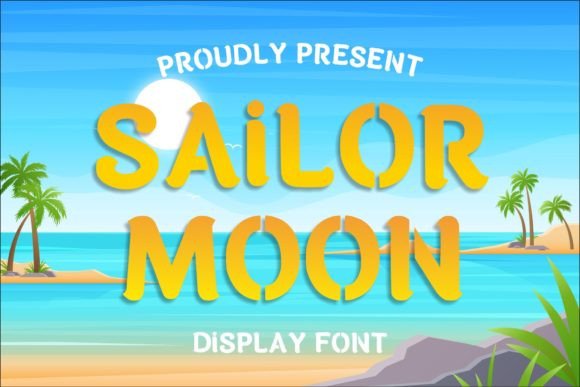
Journey into the world of Sailor Moon Font, a whimsical and captivating display font, a perfect match for your beauty products! Designed by Riki.studio, Sailor Moon is a font that exudes brilliance, joy, and an aesthetic appeal, ideal for cheerful and vibrant designs. Step into a world of imagination and enchantment as you explore the endless possibilities of Sailor Moon.
With its playful and inviting nature, Sailor Moon is particularly well suited for children's themed designs. Combine it with bright and cheerful colors to create designs that capture the hearts of young and old alike. Engage your audience with captivating product presentations, eye-catching logos, and enchanting social media graphics.
Using Sailor Moon, you'll embark on a creative voyage, transforming your designs into masterpieces of visual delight. Its charming and expressive style will infuse life into your beauty products, inviting customers to embark on a whimsical adventure with every purchase. Whether it's playful packaging, captivating labels, or enchanting promotional materials, Sailor Moon will elevate your brand to new heights of creativity.